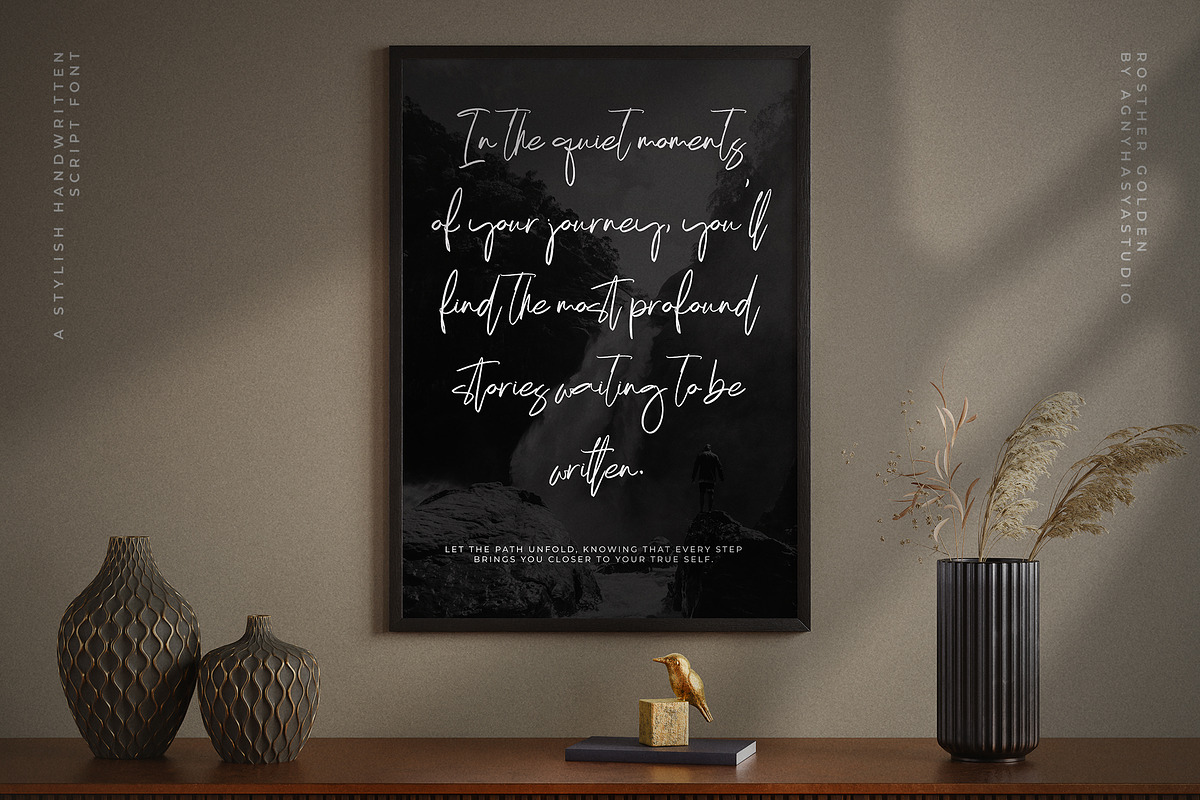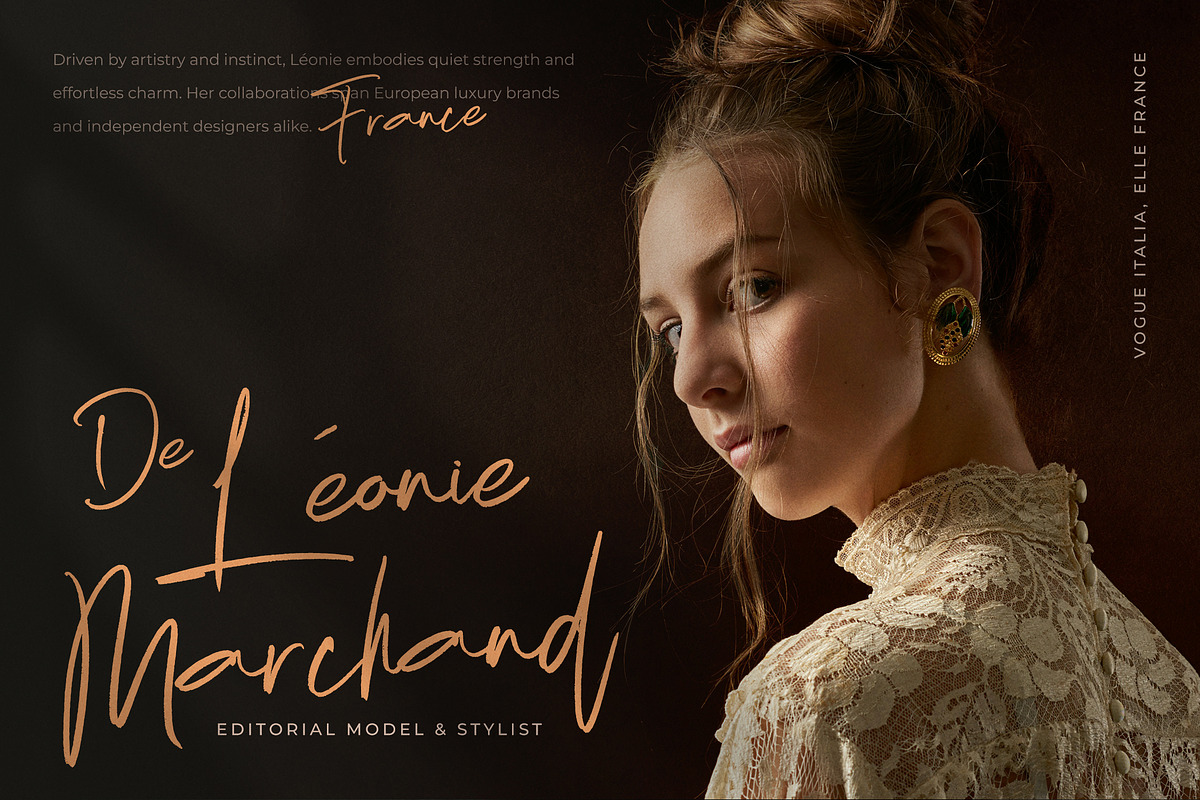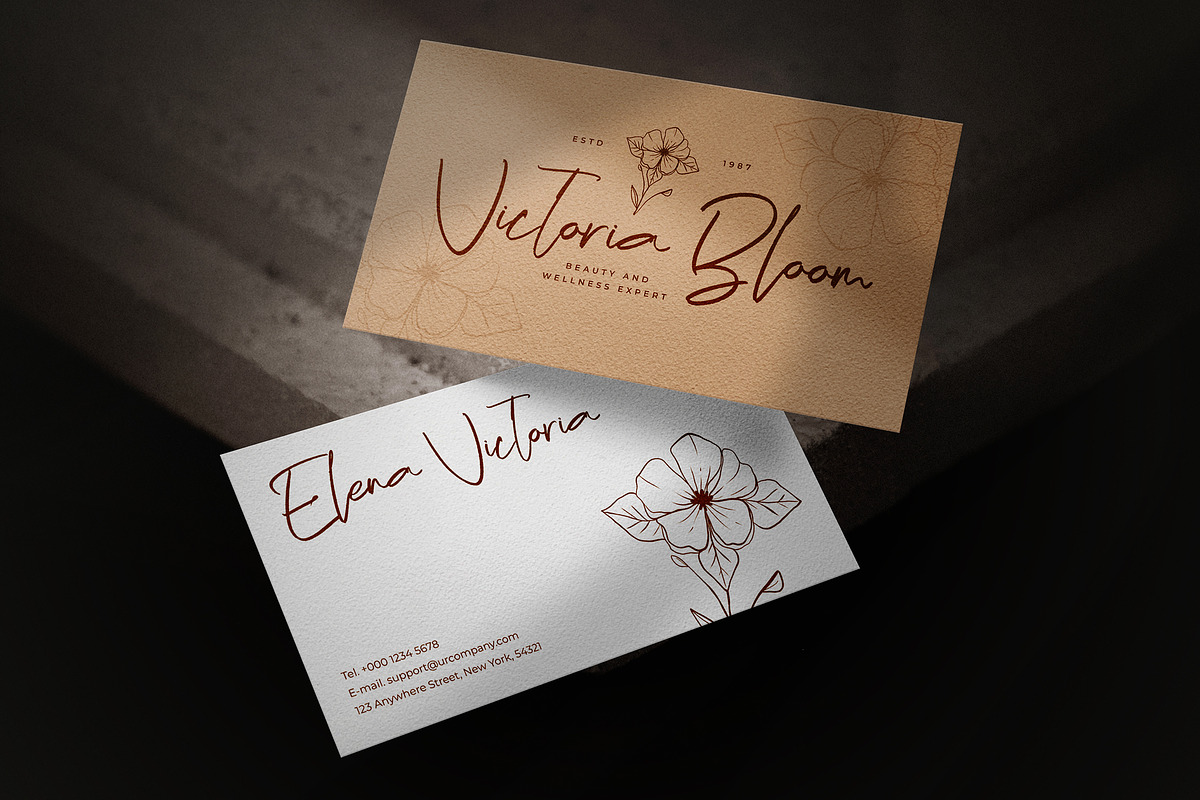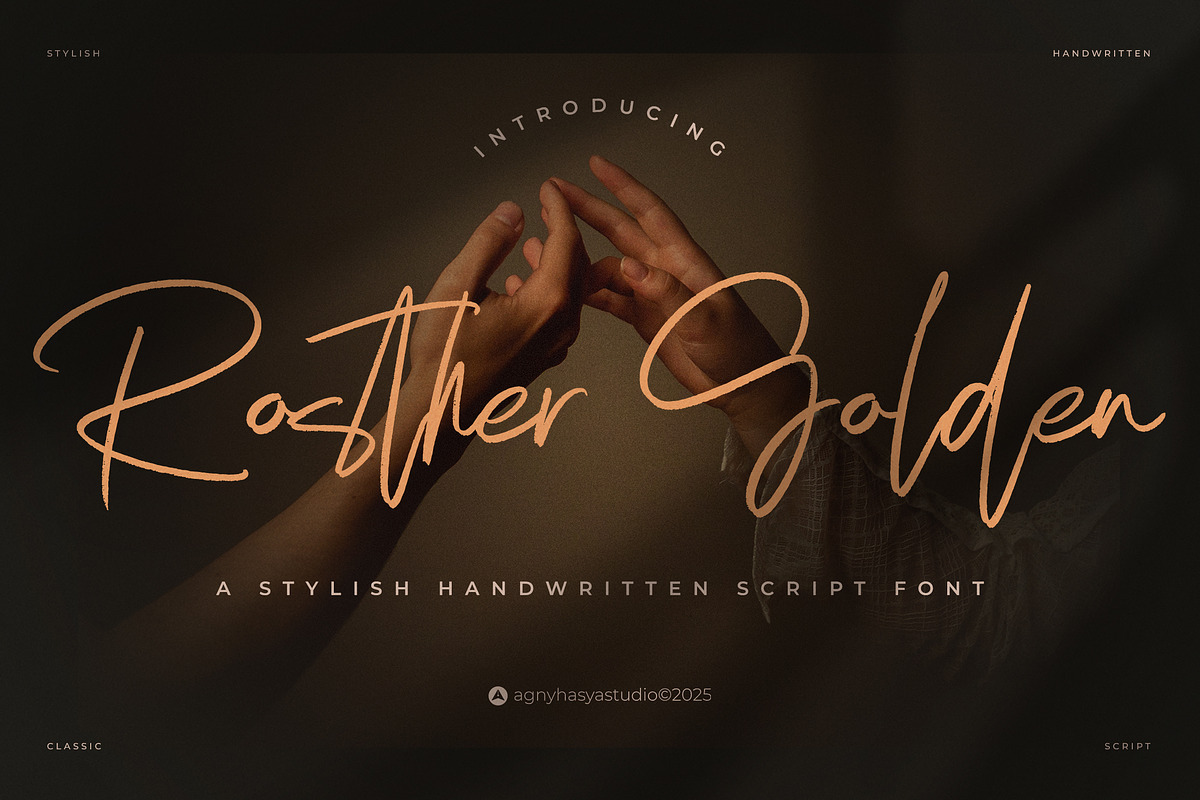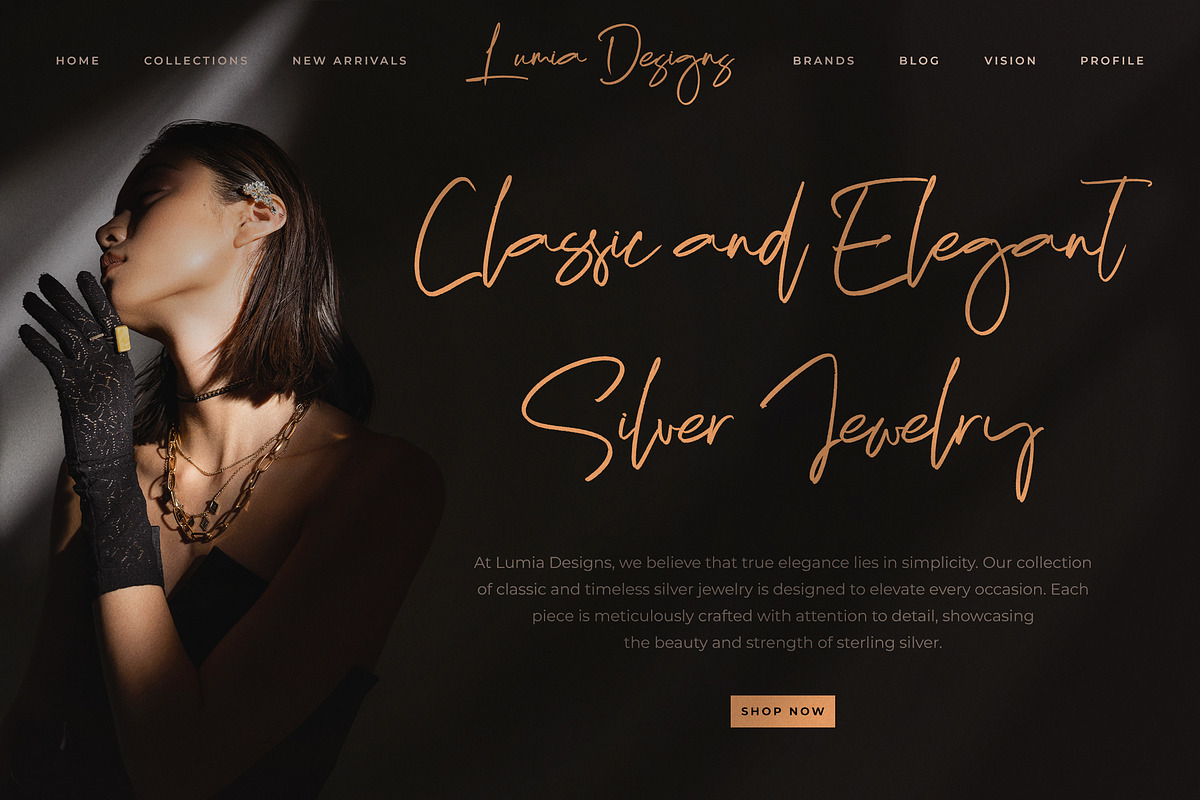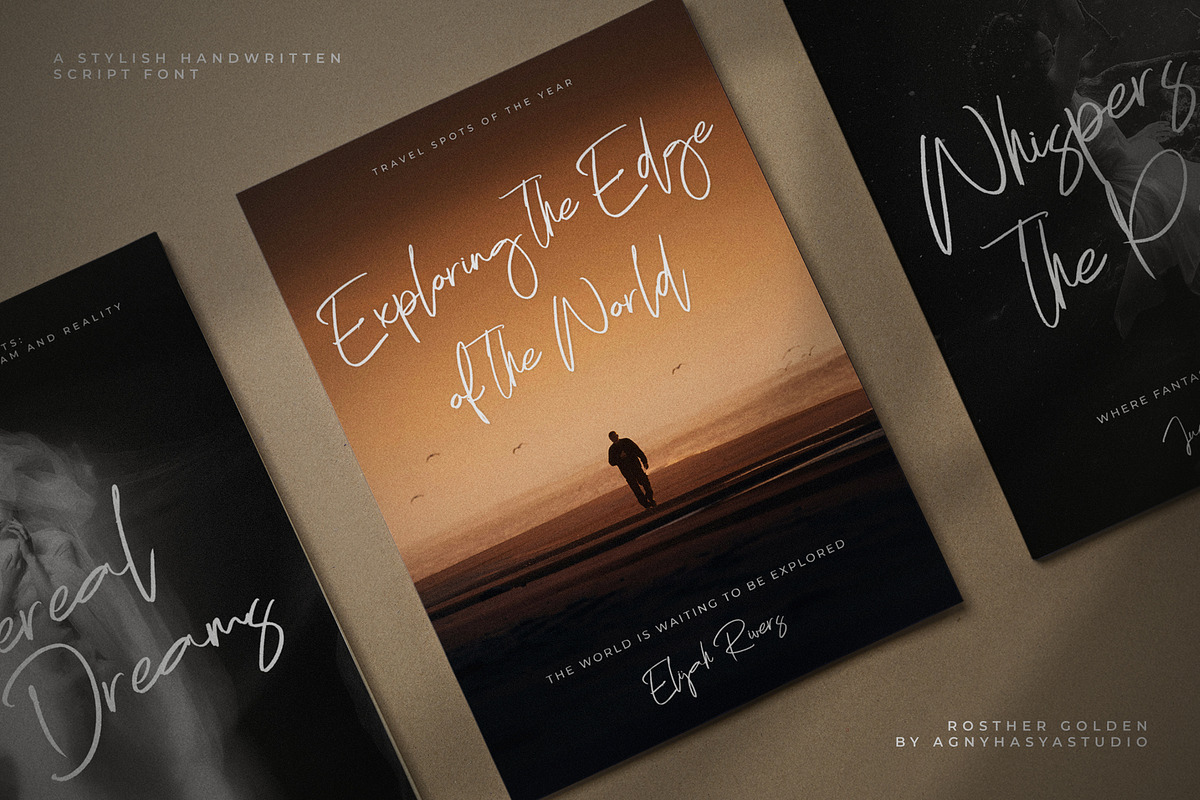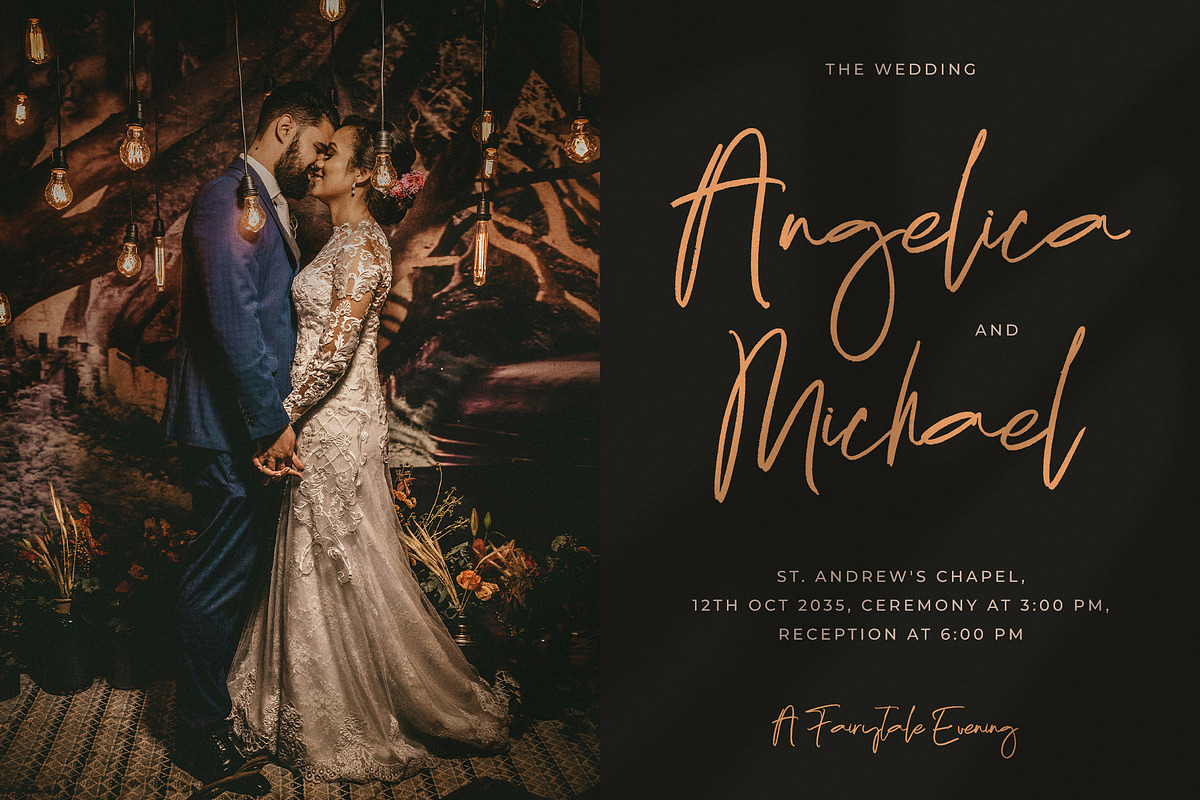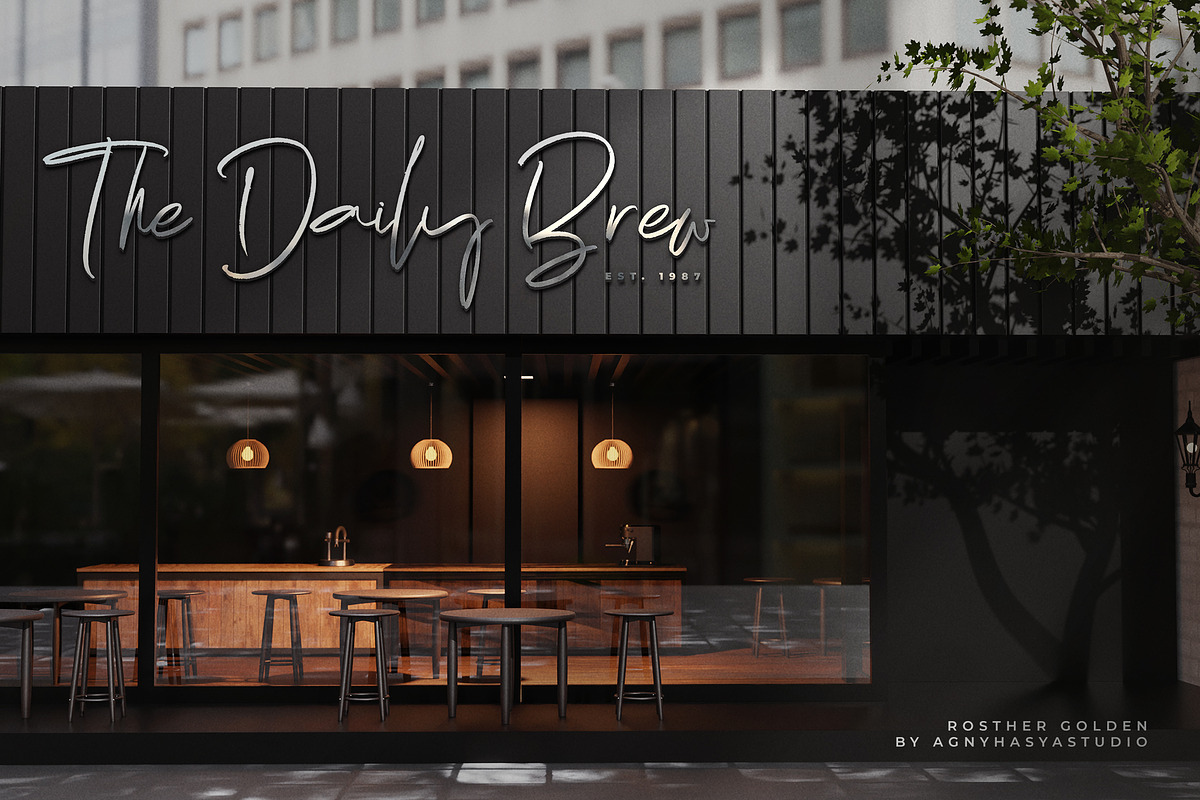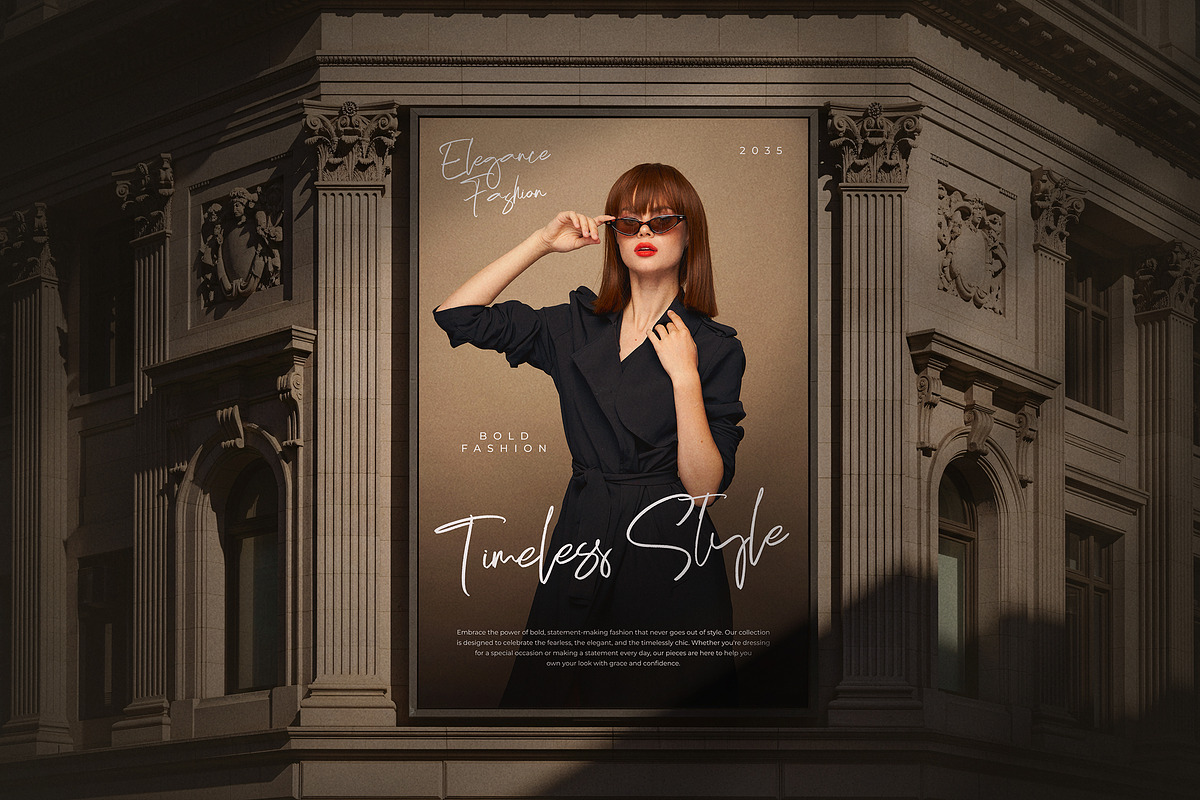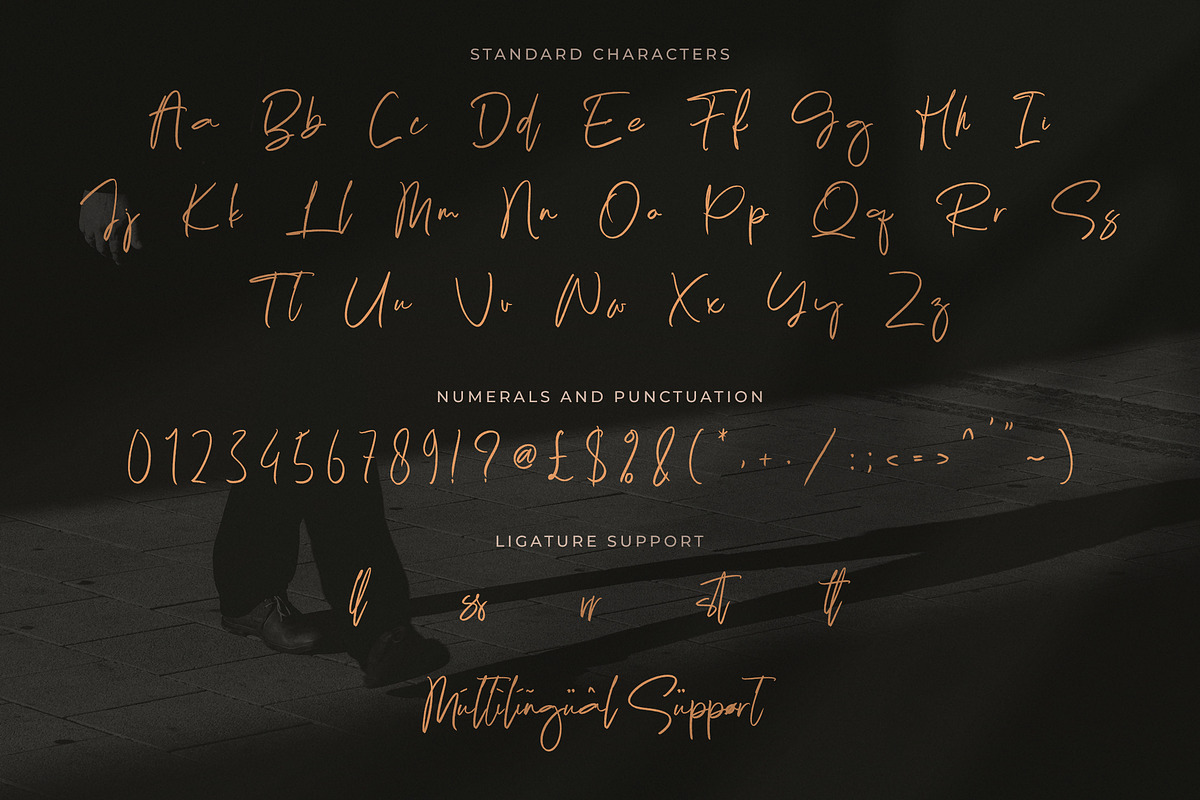
Rosther Golden
Rosther Golden is a stylish script font that blends natural handwriting with a touch of modern sophistication. Each stroke flows effortlessly, giving your design a smooth and expressive feel that works beautifully in both casual and formal contexts.
Perfect for elegant branding, personal signatures, wedding invitations, logo design, or standout social media graphics, Rosther Golden brings warmth and authenticity to every letter. Its handcrafted details create a sense of movement and personality, making each word come alive with charm and confidence.